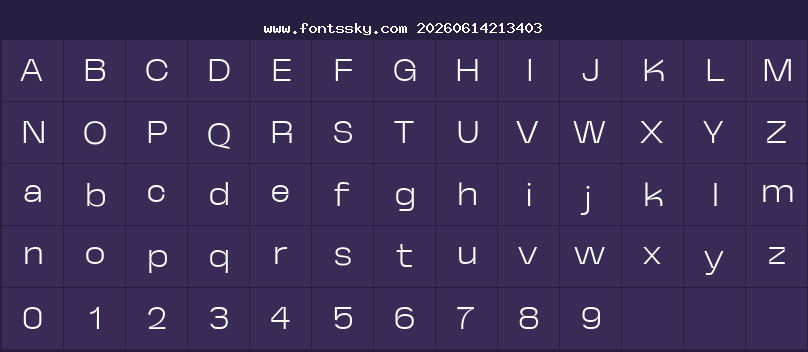
• Font Name: Neue Kaine
About Neue Kaine.ttf
Neue Kaine.ttf is a modern, elegant sans-serif font designed for ultimate readability and visual harmony. Perfect for branding, headlines, web design, and print materials.